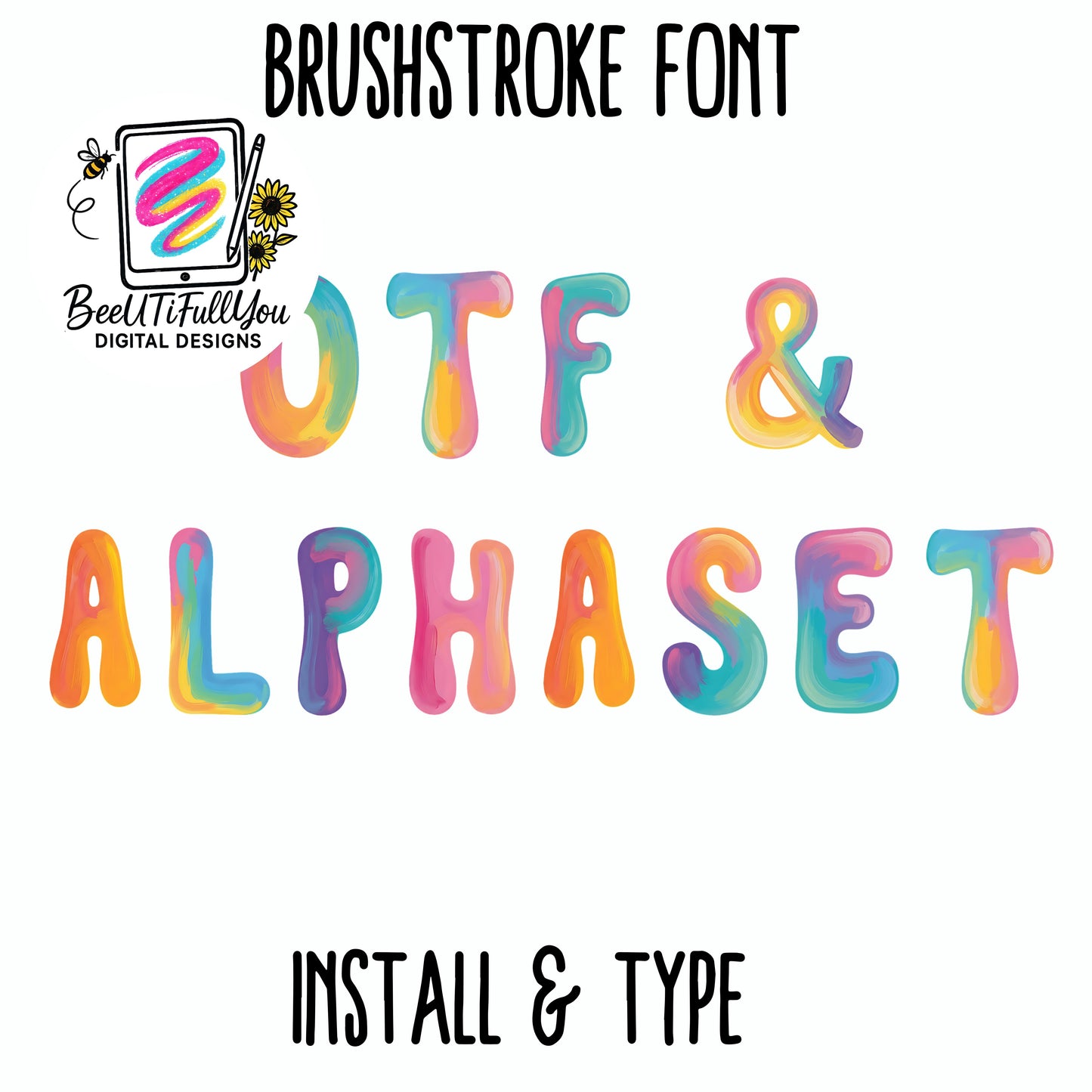
Brushstroke Font OTF + PNG Letters | Hand Painted Alphabet | Install & Type Font | Sublimation & Craft Use
Brushstroke Font – OTF + PNG Alphabet Set
This listing is for a hand-painted brushstroke font designed with soft, colorful strokes and a playful, modern look.